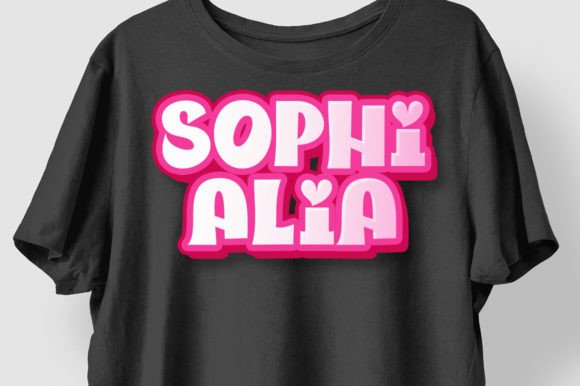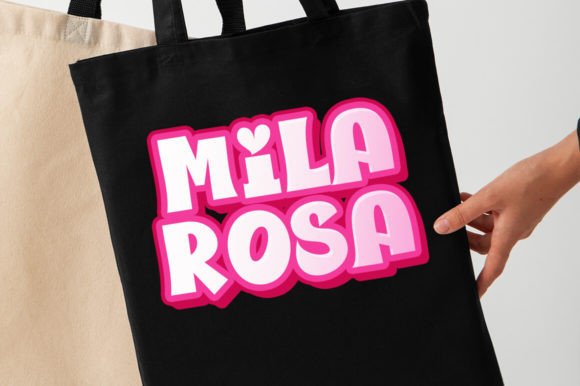
Pink Girl Font
Pink Girl is a cute and charming display font. Whimsical and a little quirky, this font will brighten up any of your designs. Add it with confidence to your projects, and you’ll love the results.